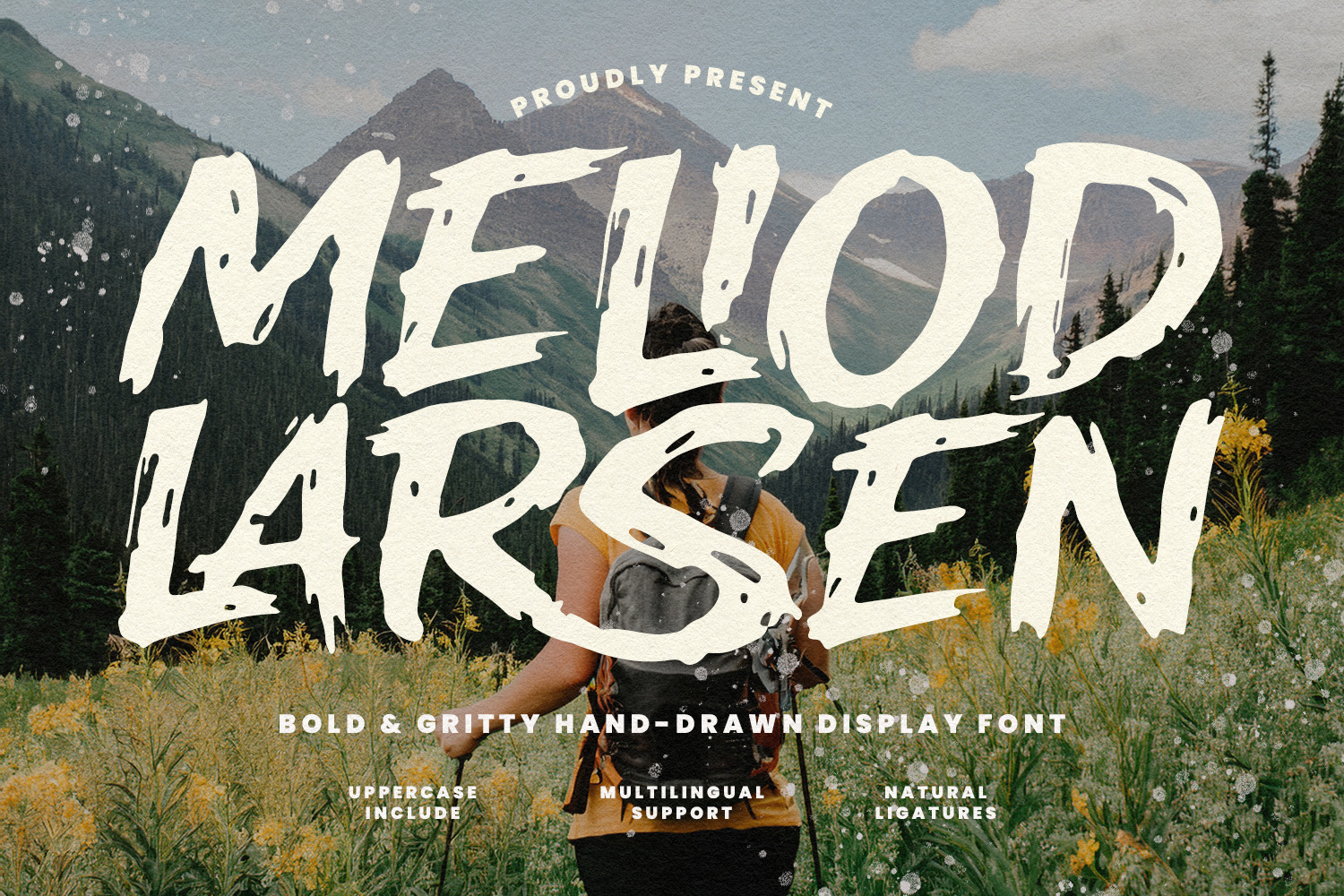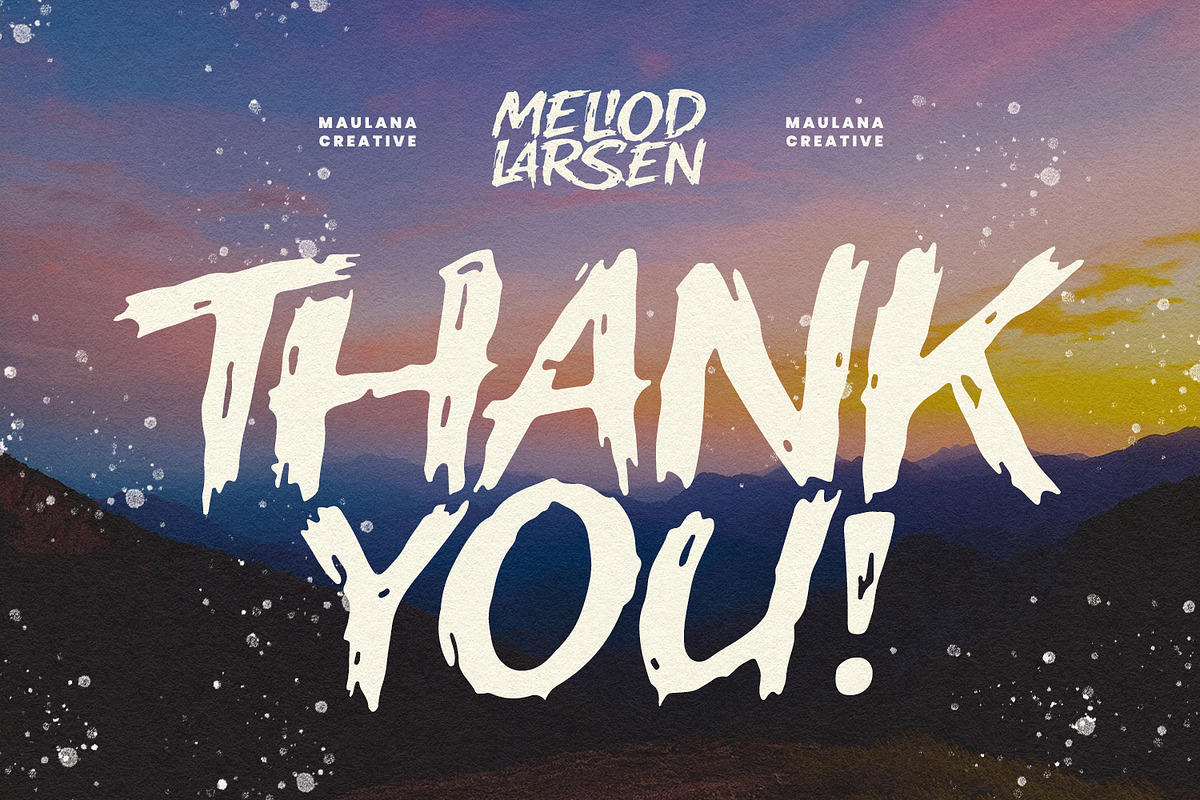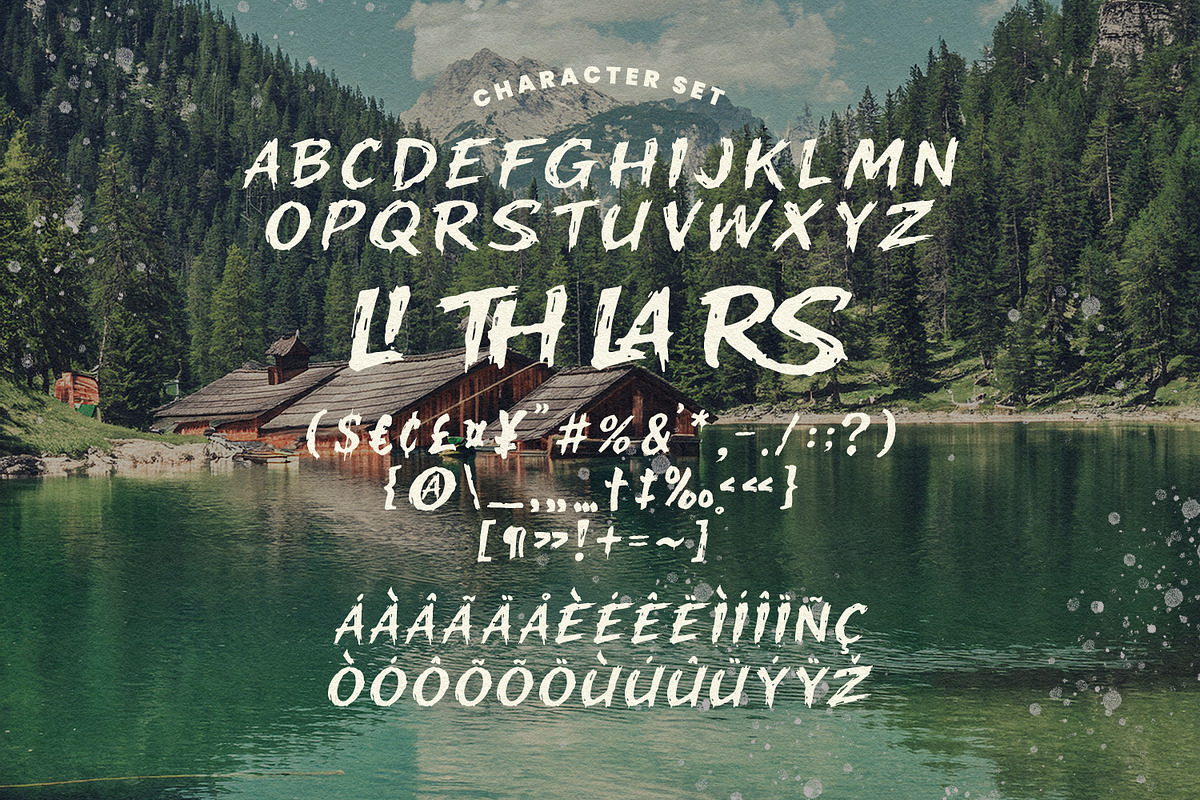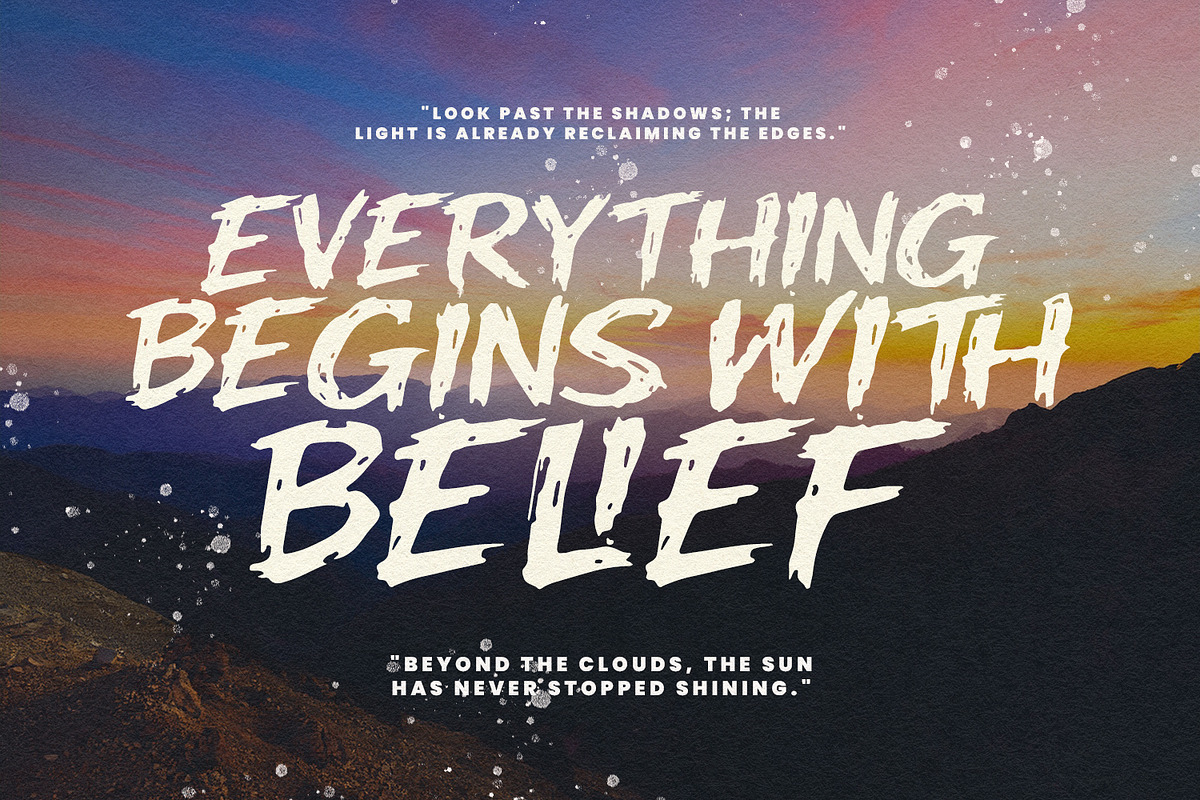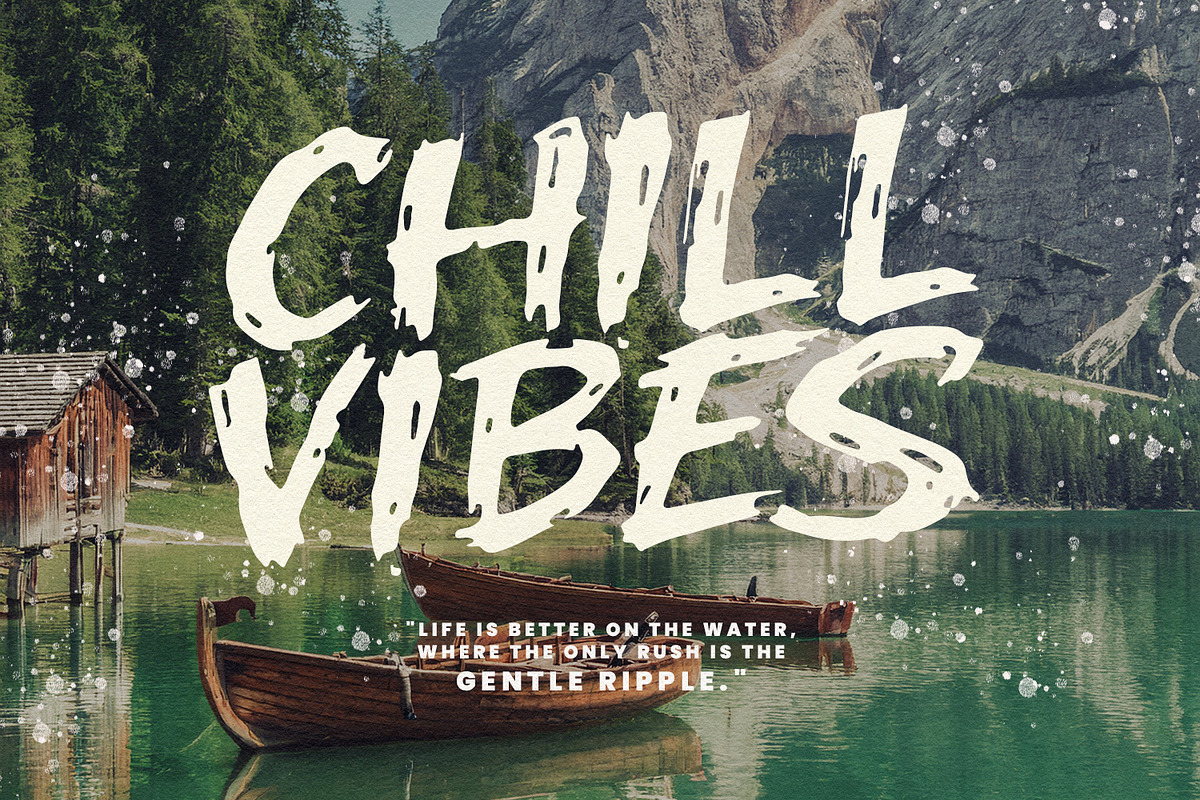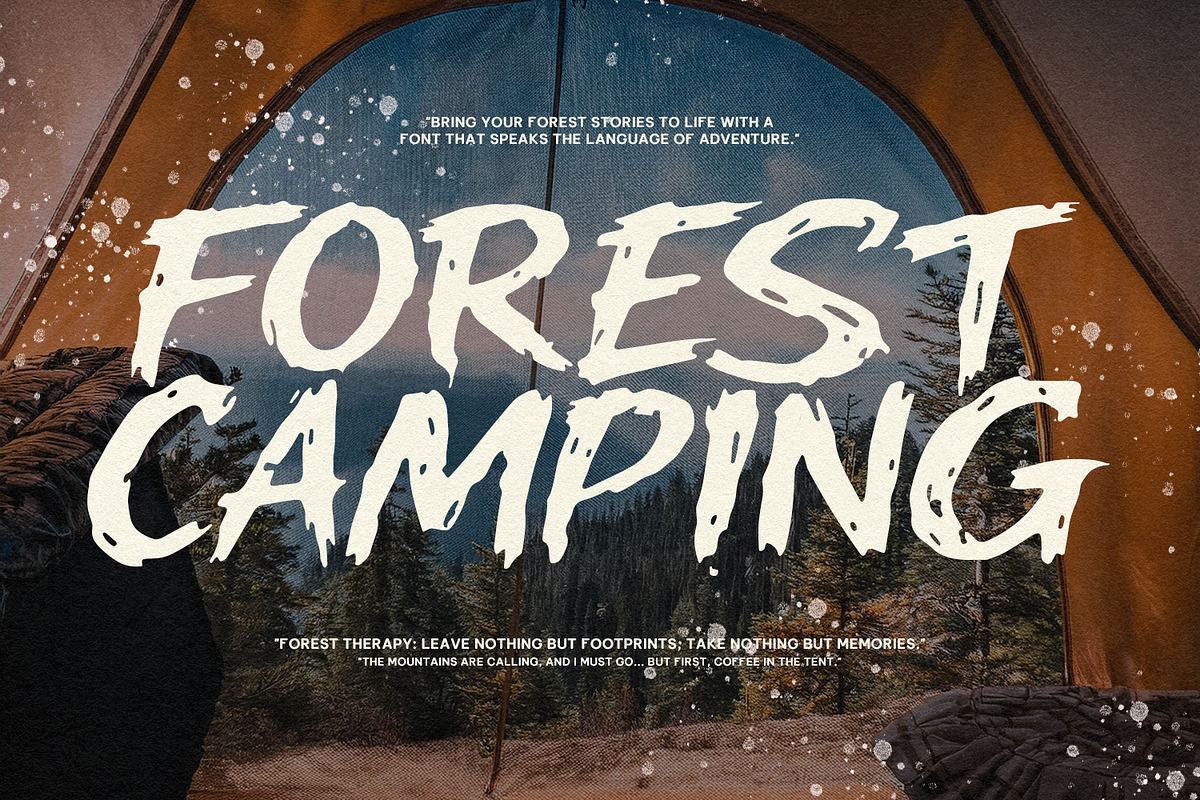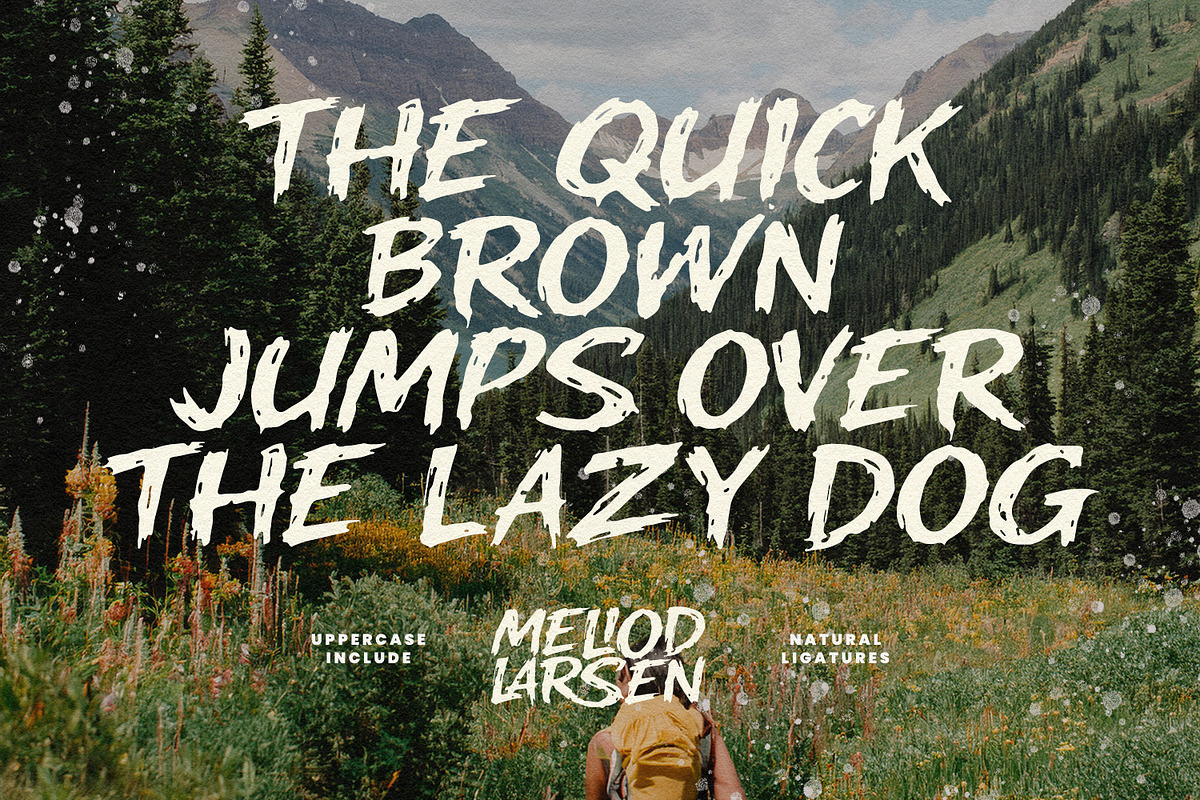
Meliod Larsen Bold Hand Drawn Font
Bring your forest stories to life with Meliod Larsen, a font that speaks the language of adventure. This bold and gritty hand-drawn display font is designed for those who want to capture the raw, untamed essence of nature and the outdoors. Featuring a rugged texture and natural ligatures, it is perfect for branding, camping gear, mountain-themed designs, and travel posters. Meliod Larsen includes uppercase characters and full multilingual support to ensure your message reaches every corner of the wild.
- Ligatures for a natural handwriting flow